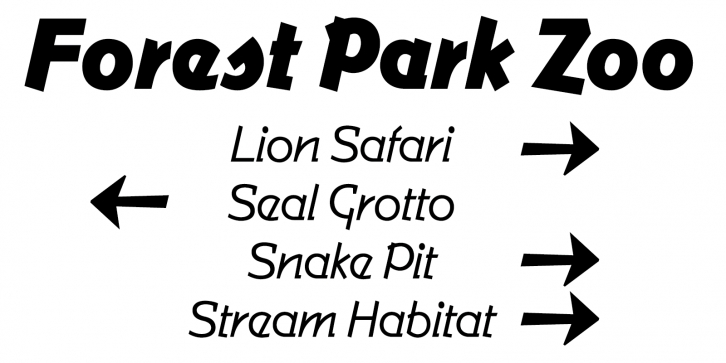
Have some mid-century fun with the clunky, quirky forms of Commerce Lean and Fat.
Greg Thompson is an American typeface designer. He began designing original typefaces in 1989 for the new retail font market. He formed a decades-long association with The Font Bureau of Boston, and in 2016 launched his own foundry on Type Network. Greg’s typefaces are part of the visual landscape in branding retail product packaging, especially food and cosmetics, restaurants, entertainment, gaming, music and movie titles, book and magazine covers, and rental housing.